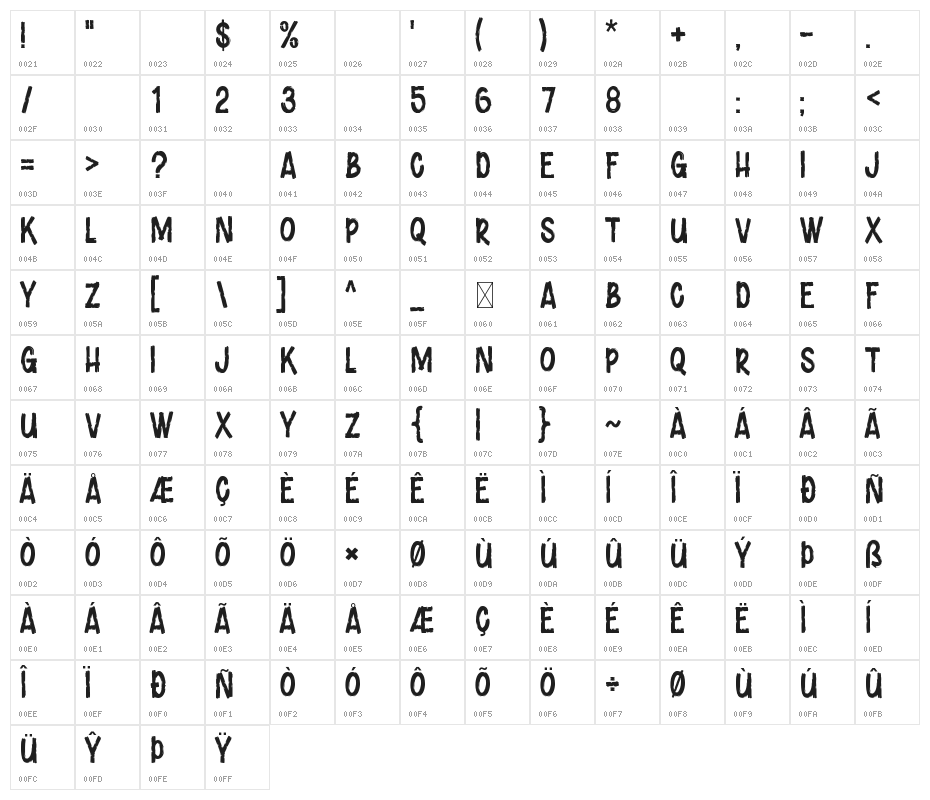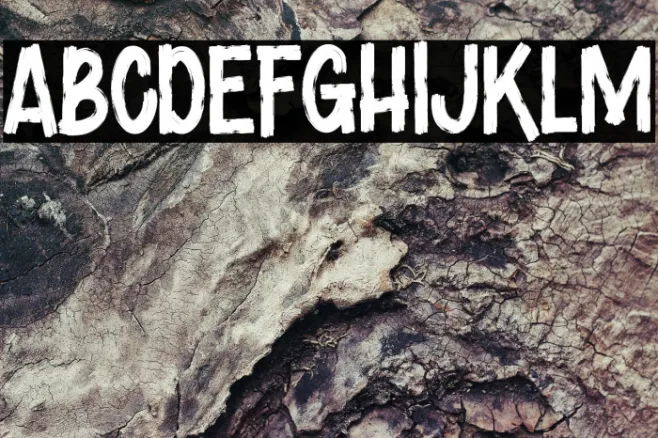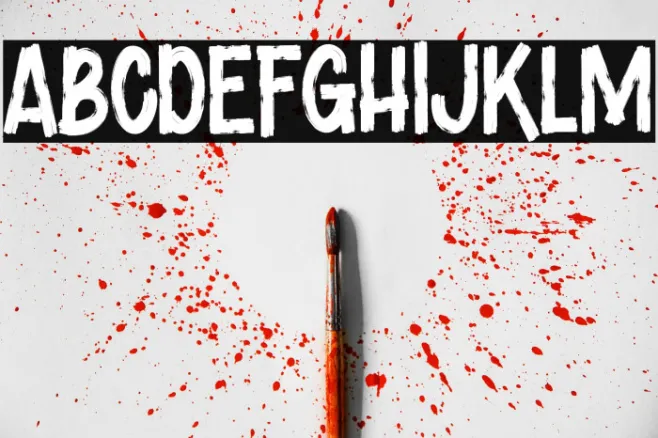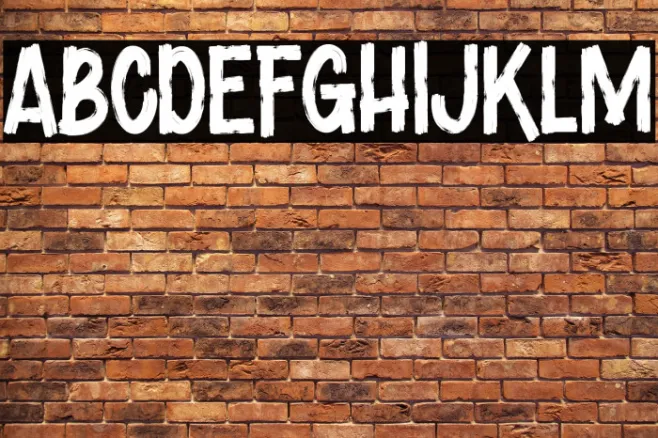
This font features a bold, hand-drawn style with a rough, textured appearance. The characters are uppercase and have a slightly uneven baseline, giving them a dynamic and energetic feel. The strokes are thick and irregular, adding a sense of spontaneity and creativity. This font is ideal for projects that require a bold and expressive look, such as posters, headlines, or artistic designs. The numbers and special characters maintain the same bold and textured style, ensuring consistency across all elements.
| Proposed Projects | Ideal for posters, headlines, artistic designs, and creative projects. |